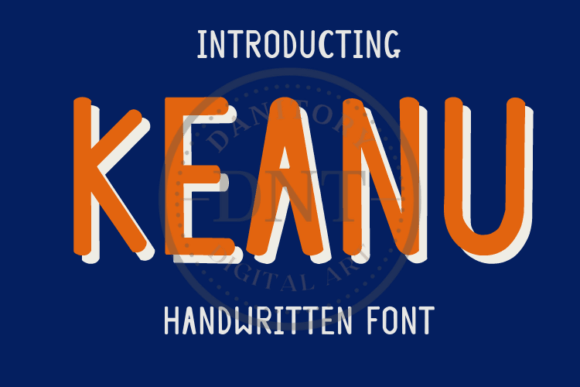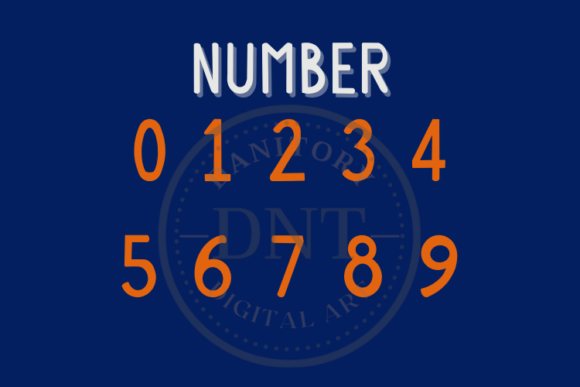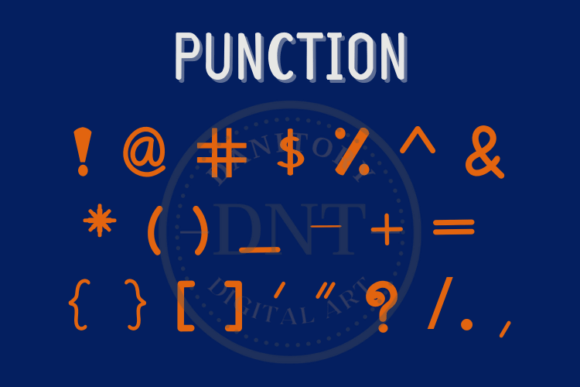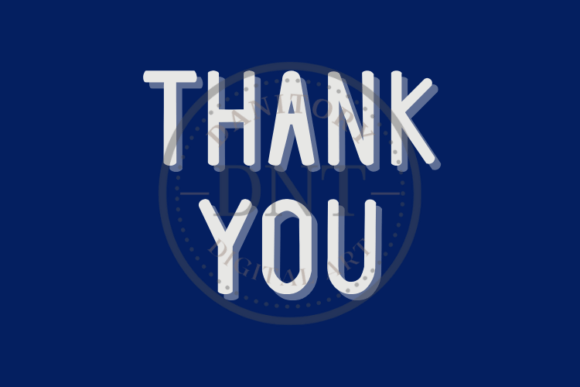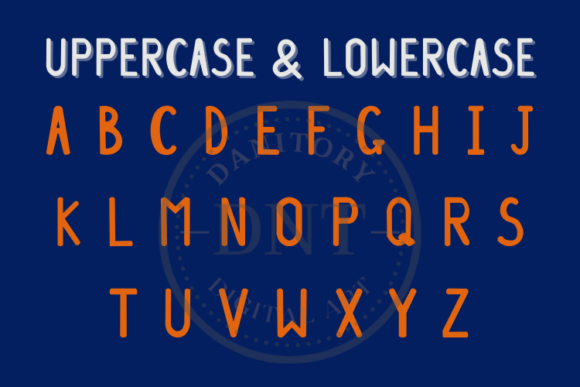
Keanu Font
What Is Keanu Font?
Keanu Font is a cute handwritten typeface designed to bring a natural and effortless look to your creative projects. Every character features smooth curves and balanced proportions that feel warm, simple, and approachable. Because of its friendly style, this font works perfectly in many design contexts, whether personal or professional.
You will see how easily Keanu makes your designs feel more genuine and eye-catching.
Keanu is an extremely versatile font you can apply across a wide range of projects. For example, it’s perfect for t-shirt designs. The playful handwritten letters add a casual, relaxed vibe that customers will love.
In addition, it works beautifully for posters and wall art. Whether you are creating inspirational quotes or decorative prints, Keanu brings a cozy, handcrafted feel.
You can also use it for product packaging and labels. Its friendly appearance makes any product look more approachable and personal.
When you design social media graphics or highlight covers, Keanu helps your posts stand out while feeling warm and inviting.
Moreover, it’s great for greeting cards, children’s books, planners, and DIY crafts. Even minimalist layouts look more lively with this handwritten script.
Why Should You Choose Keanu Font?
There are plenty of reasons to consider Keanu for your next design. First, it’s easy to read, even with its playful and casual strokes. Whether you use it for large headlines or small text, each letter remains clean and balanced.
Also, Keanu pairs beautifully with modern serif or sans-serif fonts. This helps you build cohesive, professional layouts effortlessly.
Designers appreciate that it looks polished out of the box, saving time while delivering high-quality results.
Keanu Font brings a sense of authenticity and warmth to every project. For example, when you want your designs to feel simple and natural, this font makes it easy.
Even the most basic layouts look more engaging with Keanu’s handwritten style. Whether you create branding, packaging, or social media posts, your work will stand out instantly.
Using a premium handwritten font also shows your attention to detail and commitment to quality. This builds trust with your audience and makes your designs more memorable.
Keanu Font is more than just a typeface—it’s a creative tool that helps you share ideas with clarity and charm. From t-shirts and posters to labels and social media graphics, this font adapts beautifully and leaves a lasting impression.